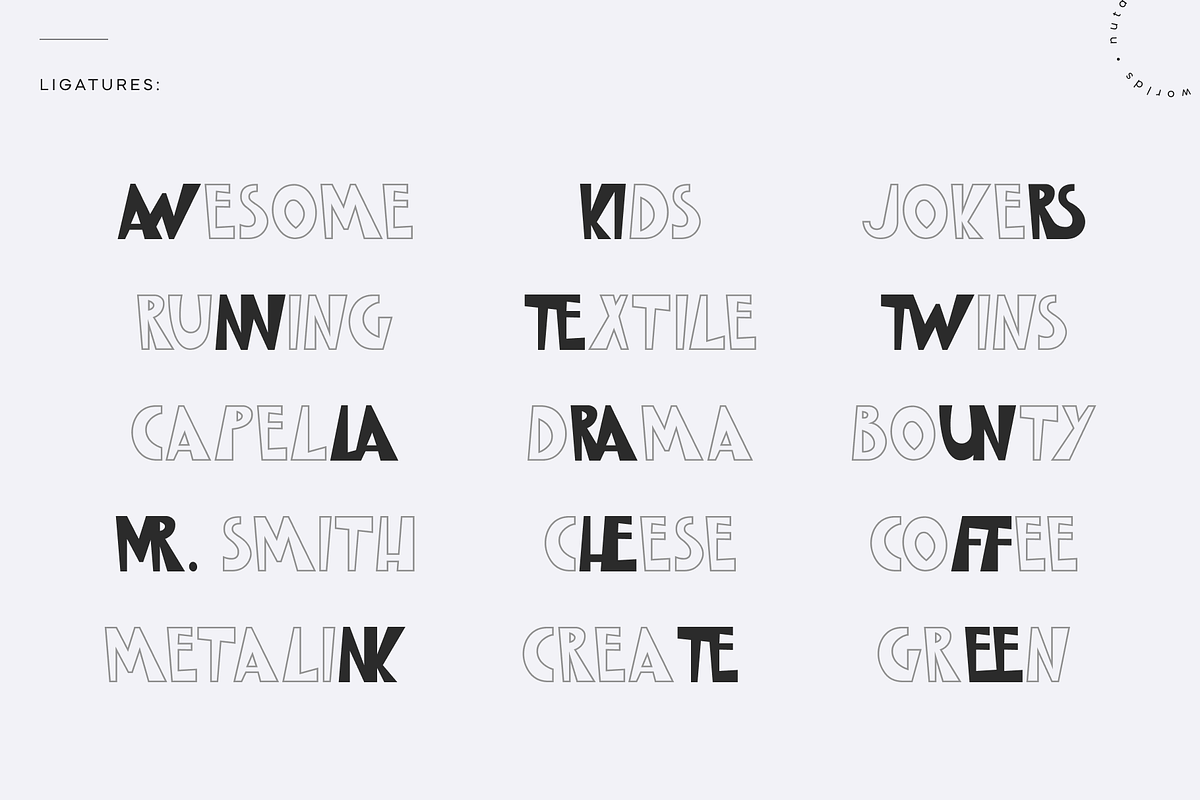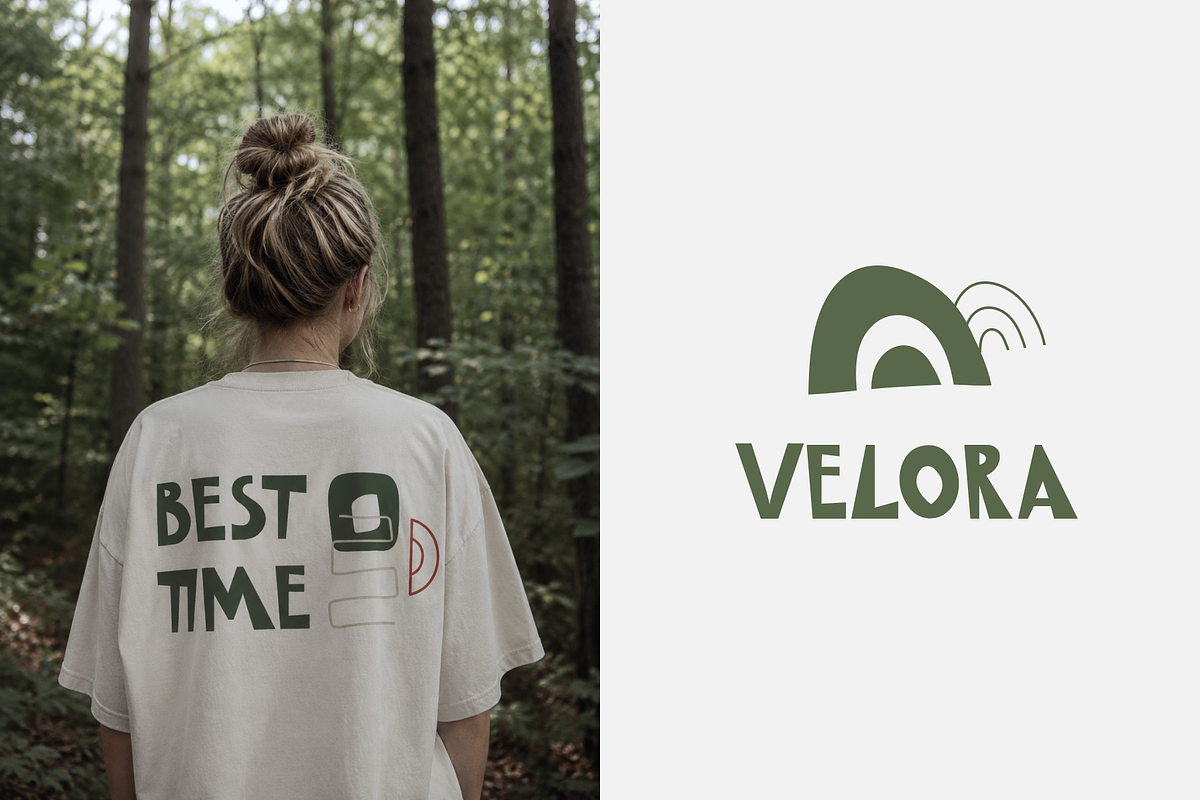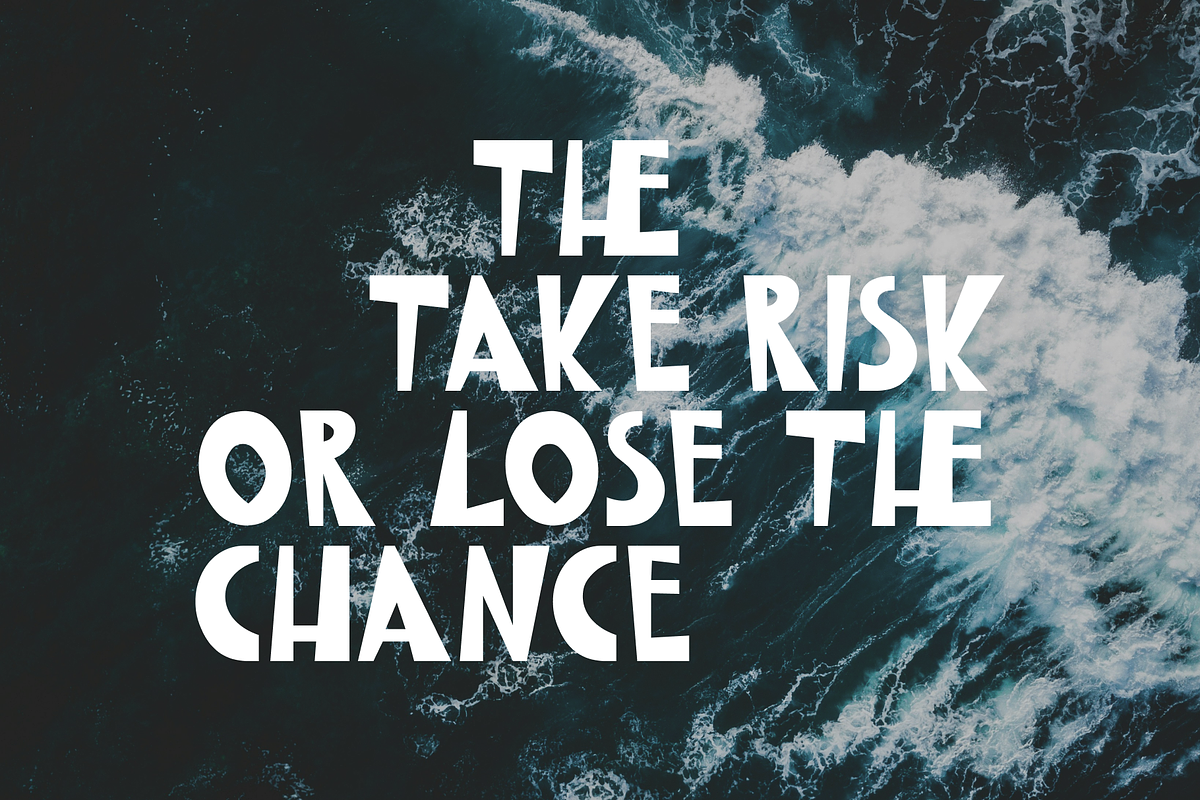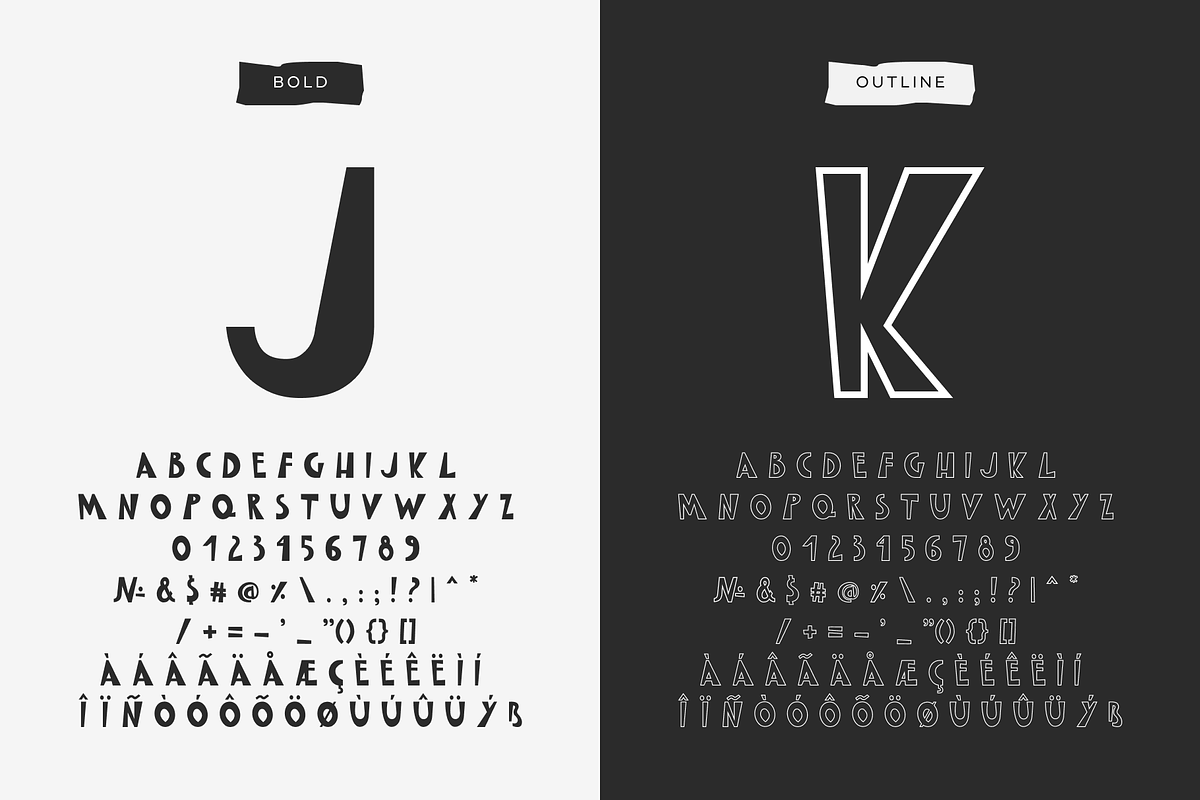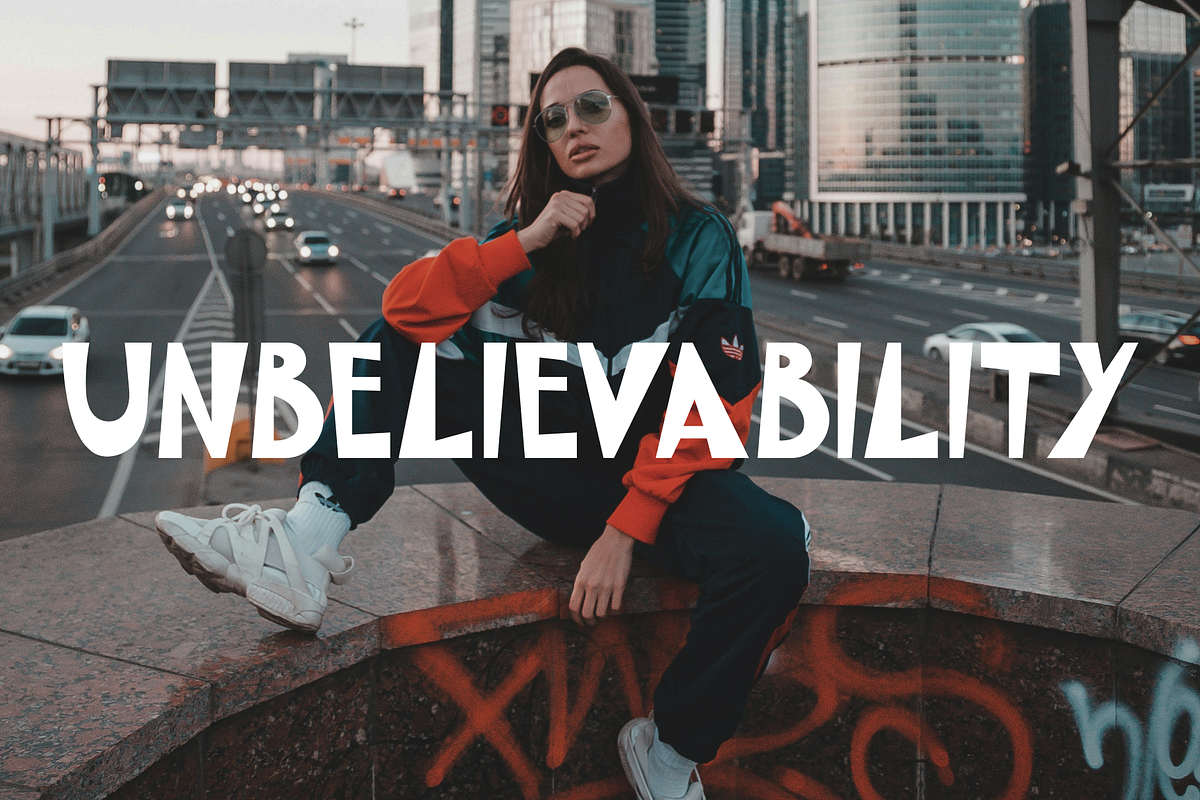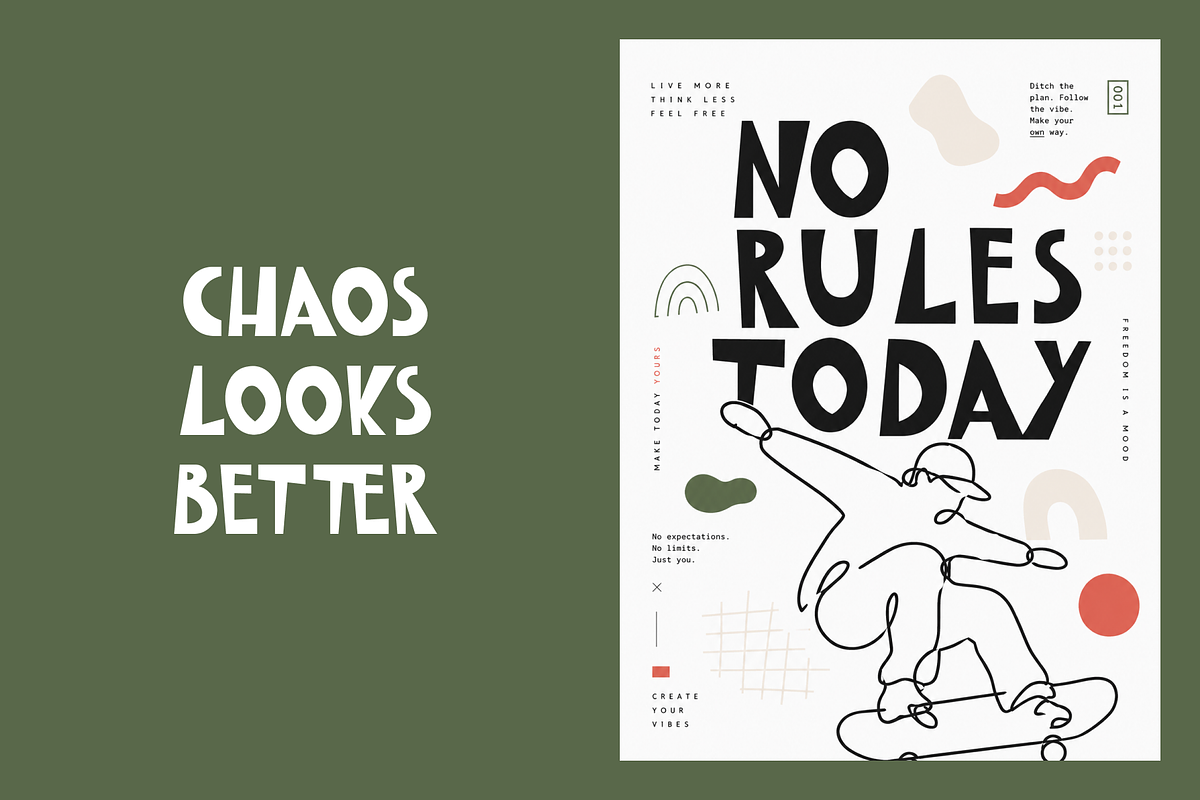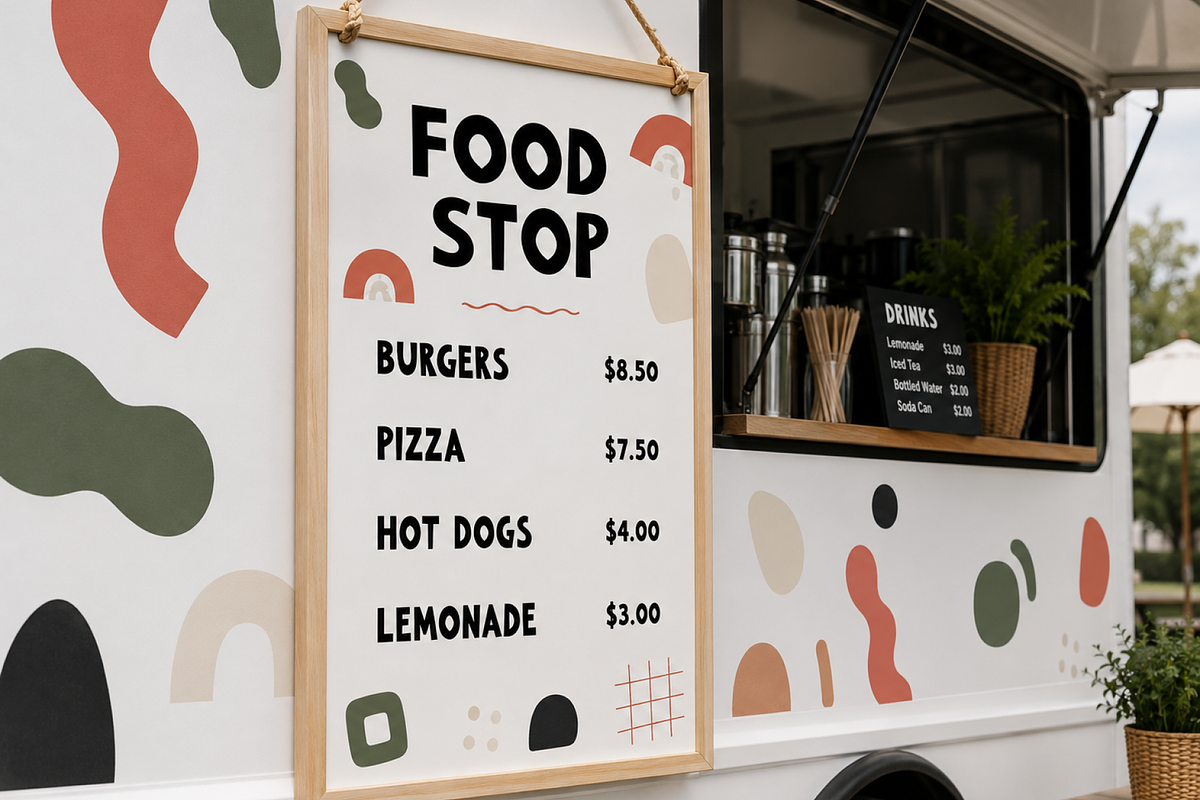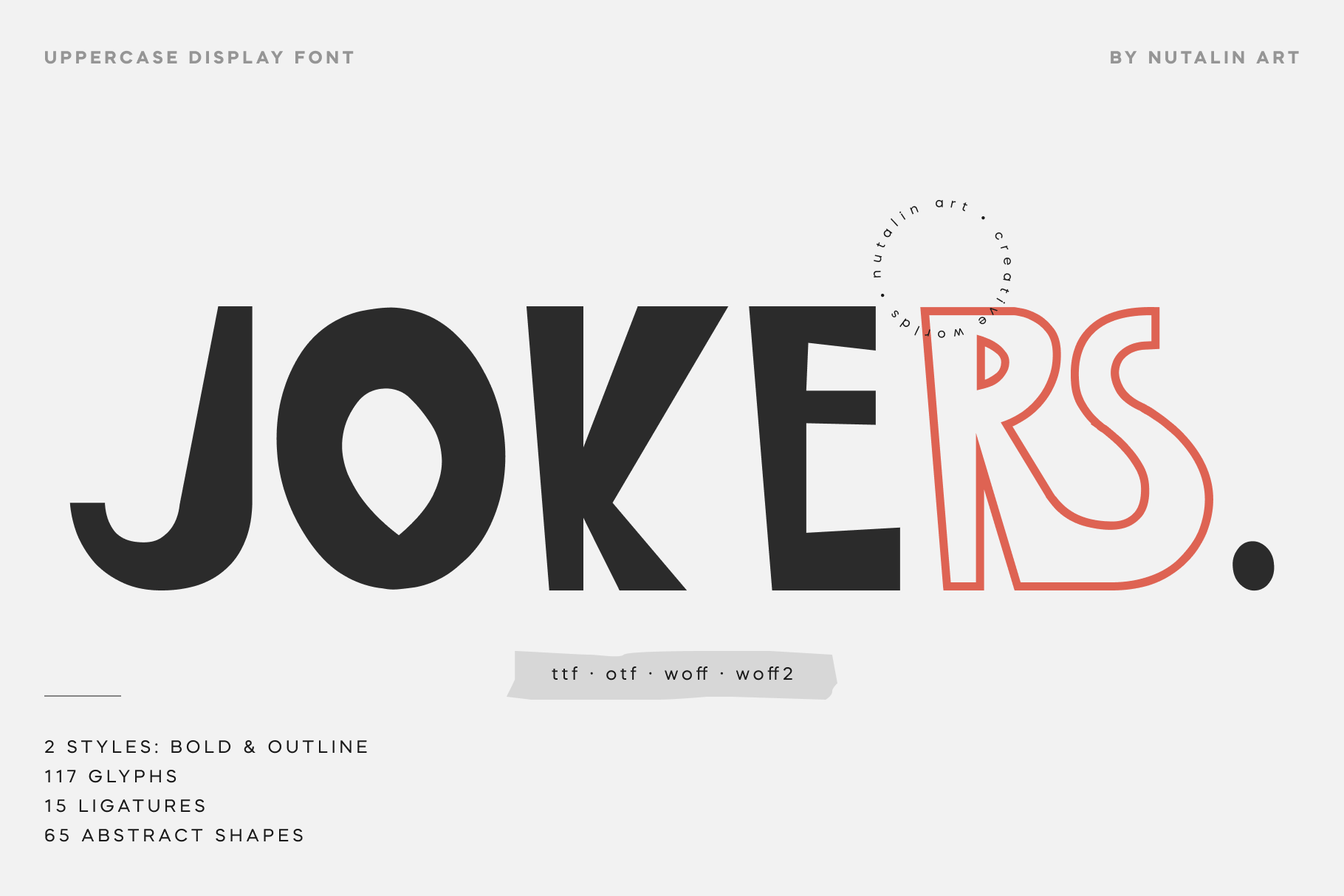
Jokers | Jouful Hand Drawn Font Duo
Jokers is a bold uppercase display font created for eye-catching headlines, modern branding, and expressive typography. Featuring two styles (bold & outline), 117 glyphs, 15 ligatures, and a collection of abstract vector shapes, it brings a playful yet confident personality to posters, packaging, logos, editorial layouts, and social media graphics.
Its slightly irregular letterforms give every composition an energetic, handcrafted feel while remaining clean, highly legible, and versatile. Whether you're designing a creative brand identity, streetwear collection, music artwork, or contemporary marketing campaign, Jokers helps create typography that feels fresh, bold, and memorable.
Perfect for designers, creators, and brands looking for a modern display font with strong visual impact, expressive ligatures, and flexible styling for both print and digital projects.
How you can use this:
✦ Brand Designers — logos, visual identities, brand systems, packaging, labels.
✦ Graphic Designers — posters, magazine covers, editorial layouts, flyers, brochures.
✦ Content Creators — YouTube thumbnails, Instagram posts, Pinterest graphics, social media campaigns.
✦ Fashion & Apparel Brands — t-shirts, hoodies, tote bags, caps, streetwear collections.
✦ Small Businesses — product packaging, café branding, cosmetics, lifestyle products.
✦ Print-on-Demand Sellers — stickers, mugs, notebooks, phone cases, wall art.
✦ Marketing Teams — advertising campaigns, presentations, landing pages, web banners.
✦ Creative Studios — portfolio projects, moodboards, mockups, typography-based artwork.